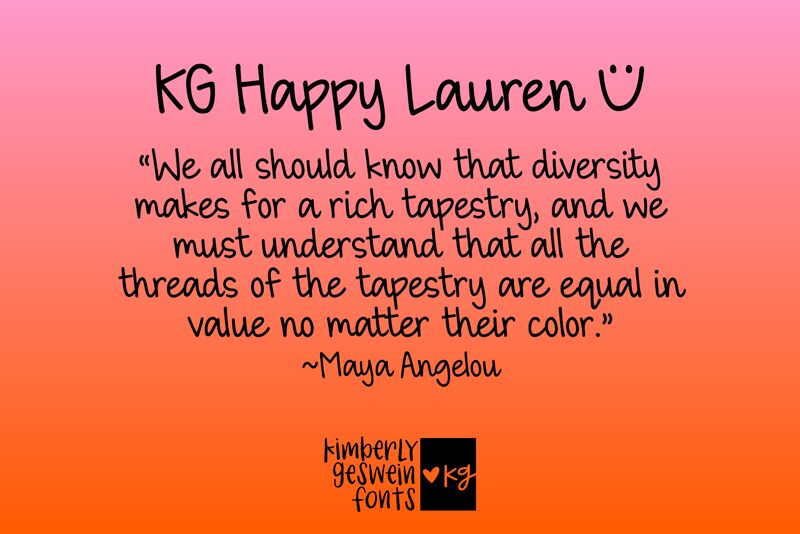
KG Happy Lauren font family is a handwritten free font family presented by Kimberly Geswein in 2 font styles. The casual warm characters come in a relaxed but modern style with a partial alignment meant to mimic real handwriting. Letters preserve a cheerful appearance and look inviting and personable making a quick strong visual impact.
Use this font family for handwritten posters, Instagram inspirational quotes, or postcards for your loved ones. The font family is designed for fast projects and is also suitable for small descriptions in inviting brochures and similar works. This handwritten font family can combine perfectly with geometric sans-serifs for a modern appeal.